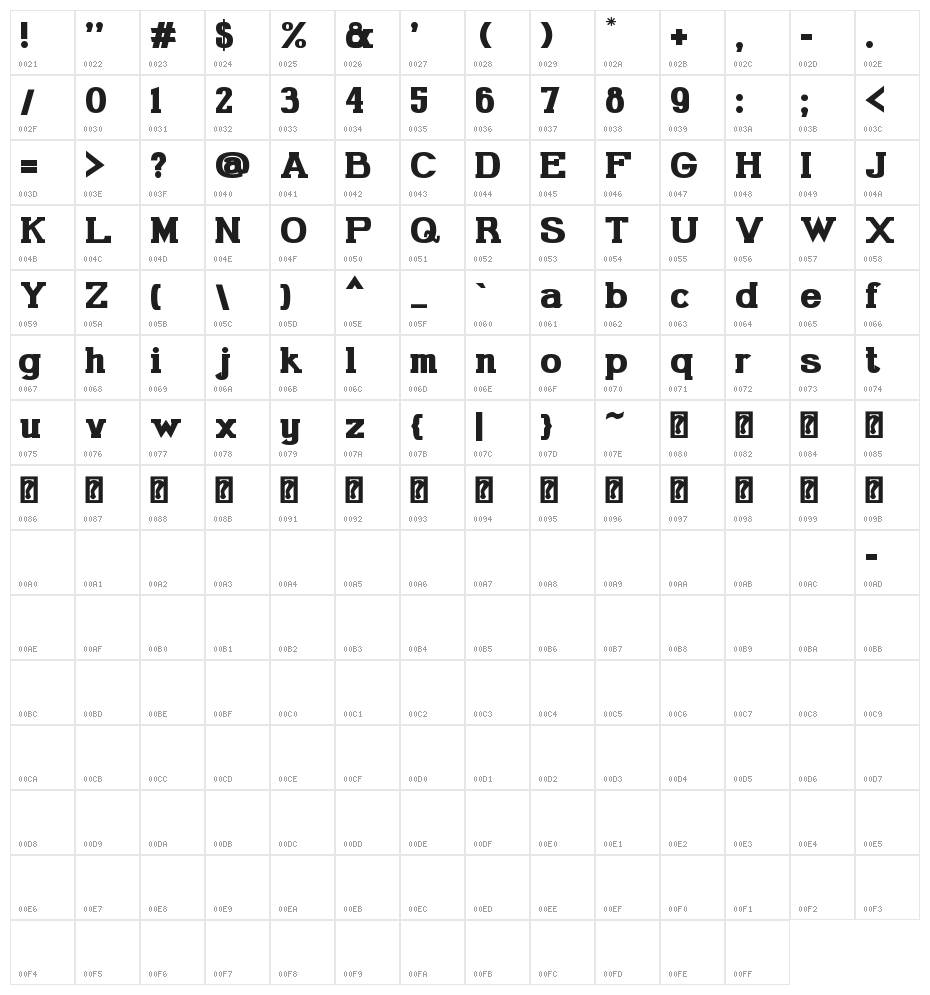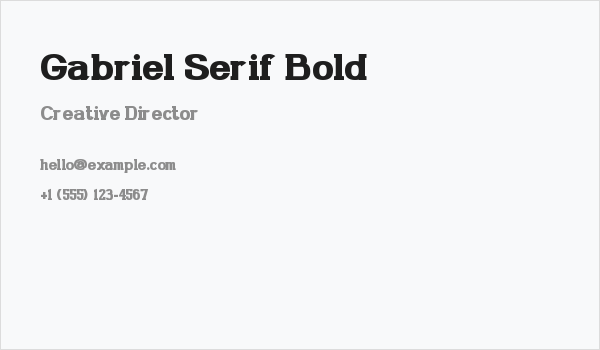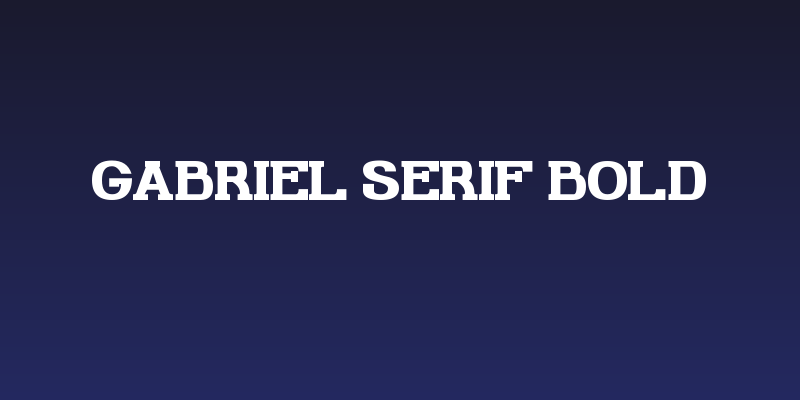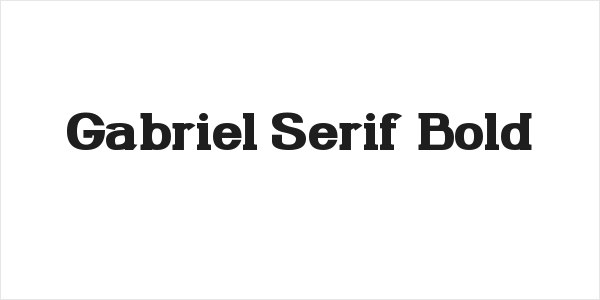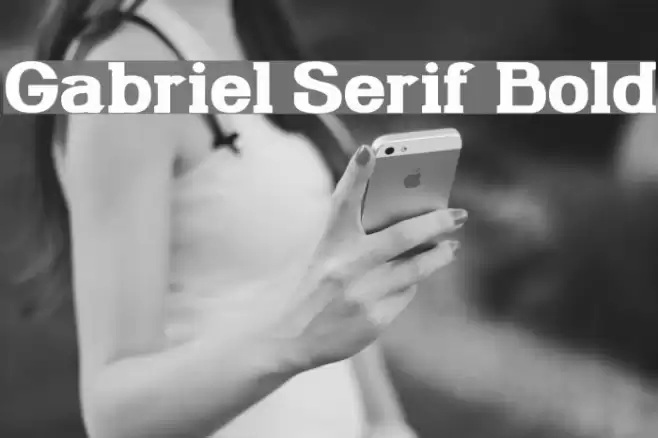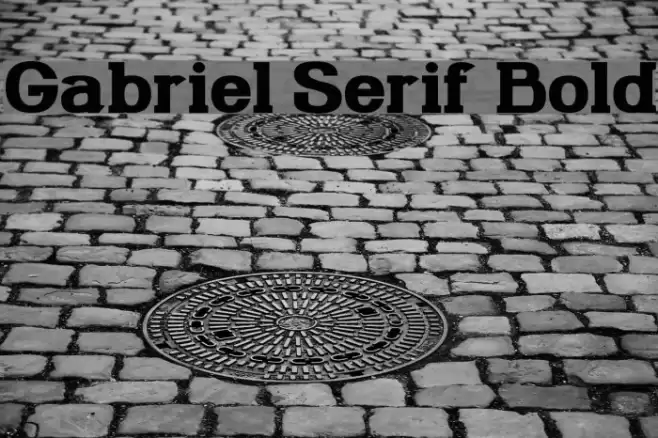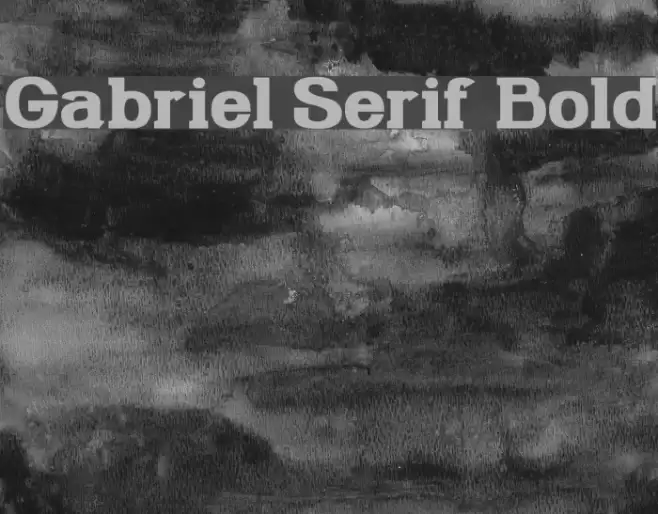
Gabriel Serif Bold Font
Gabriel Serif Bold Description
This font features a bold and assertive serif style, characterized by thick strokes and prominent serifs that give it a strong presence. The uppercase letters are robust and commanding, while the lowercase letters maintain a consistent weight, offering a harmonious balance. The numerals are equally bold, ensuring readability and impact. Special characters are designed with the same boldness, making them stand out effectively. This font is ideal for making statements, with its high contrast and clear legibility.
| Overall Style | Classic |
| Proposed Projects | Ideal for headlines, posters, branding, and any project requiring a strong, impactful serif font. |